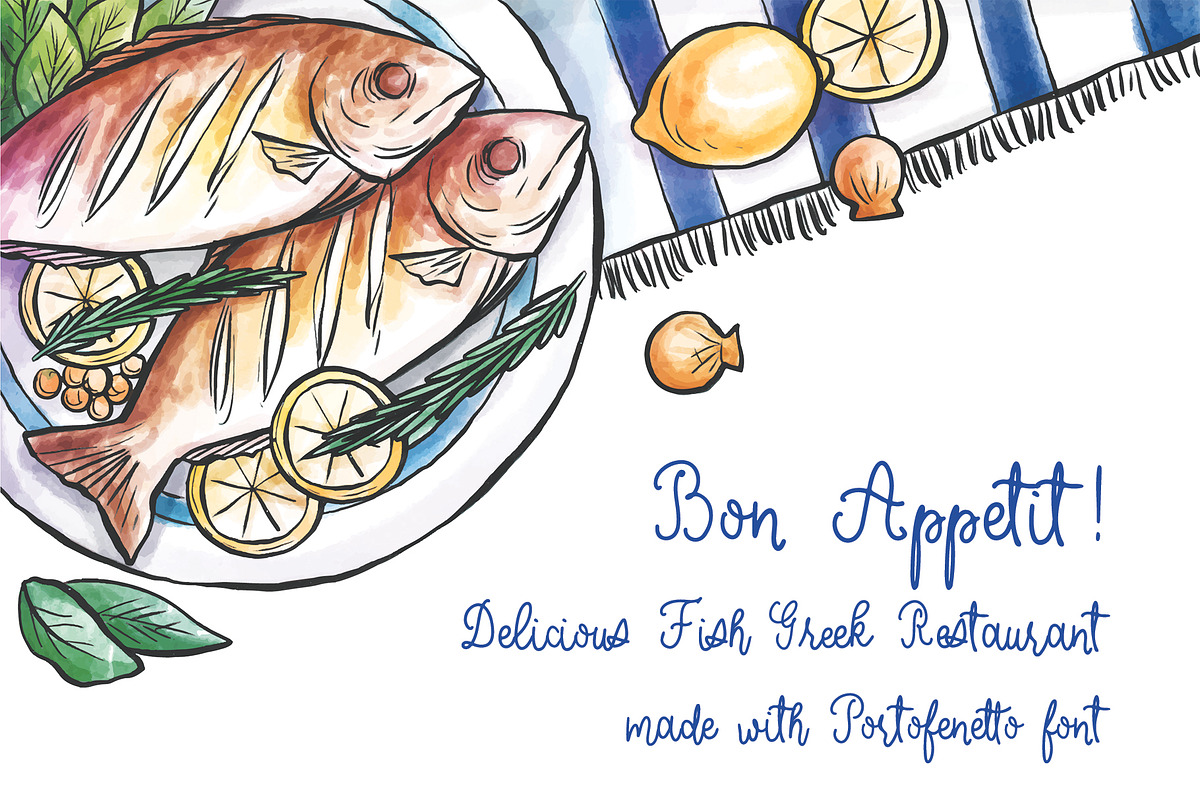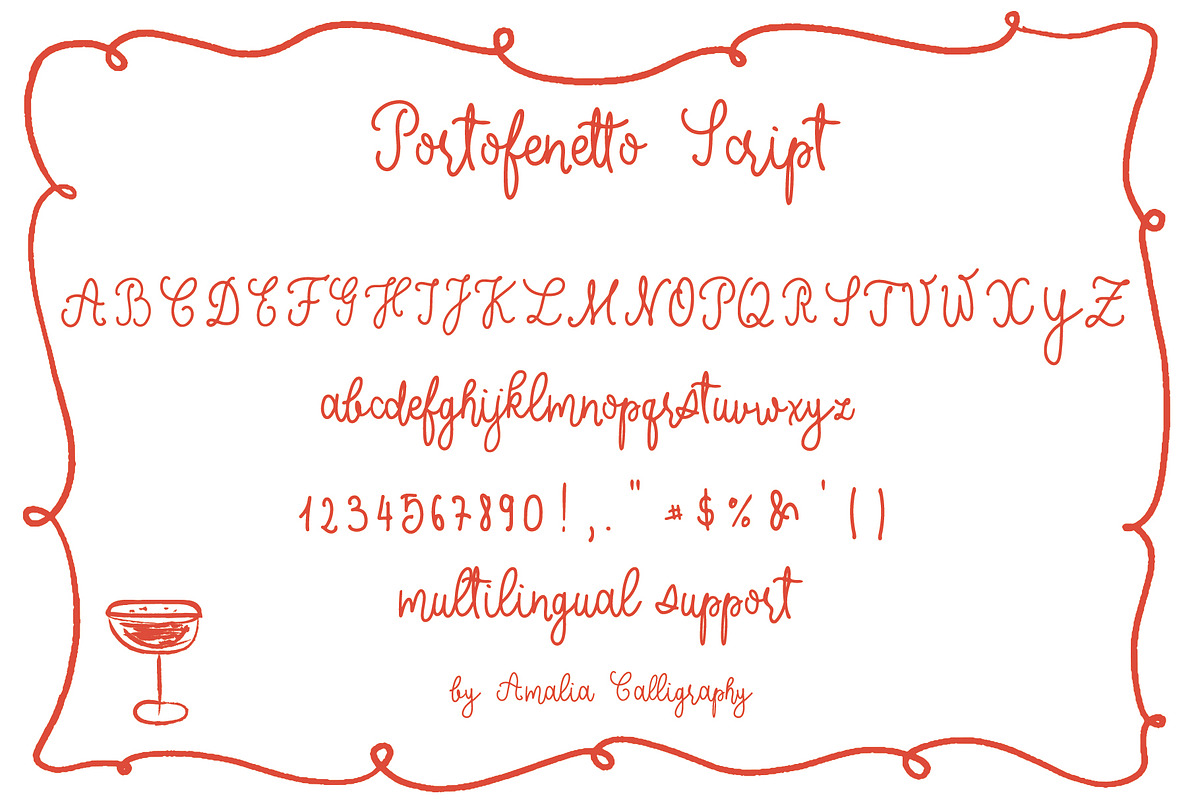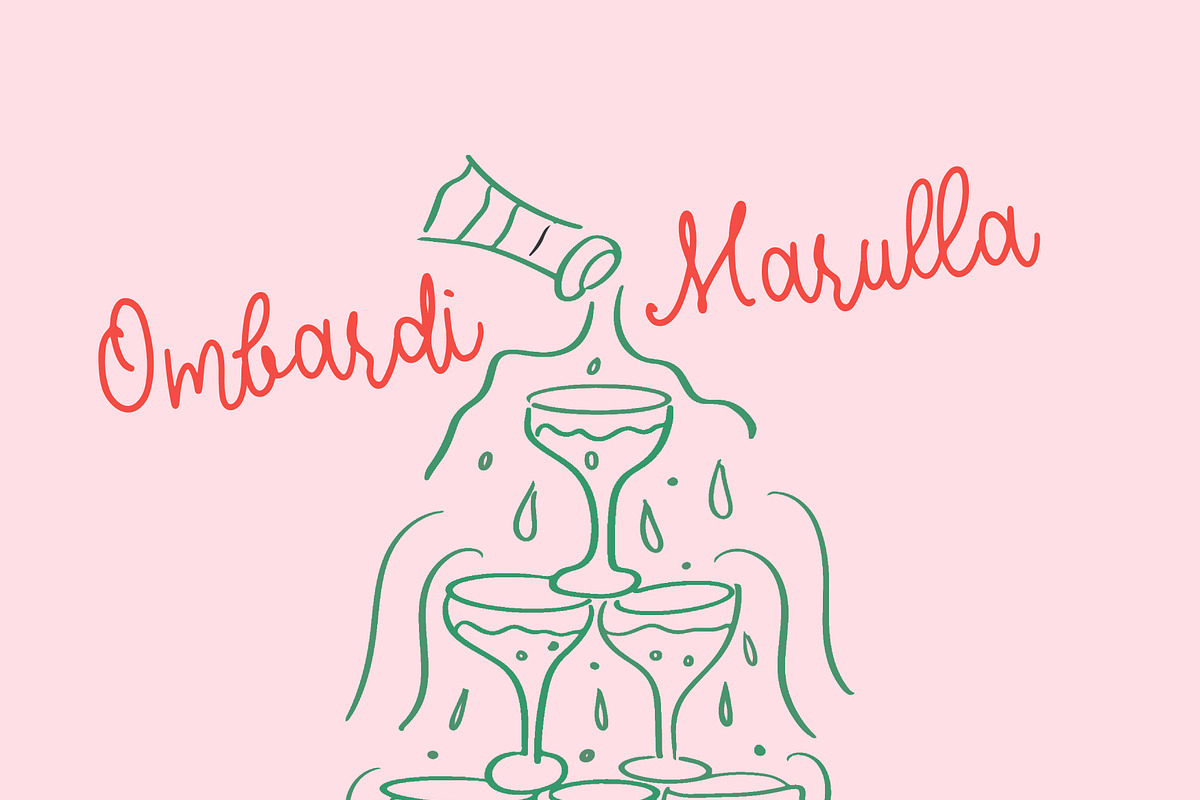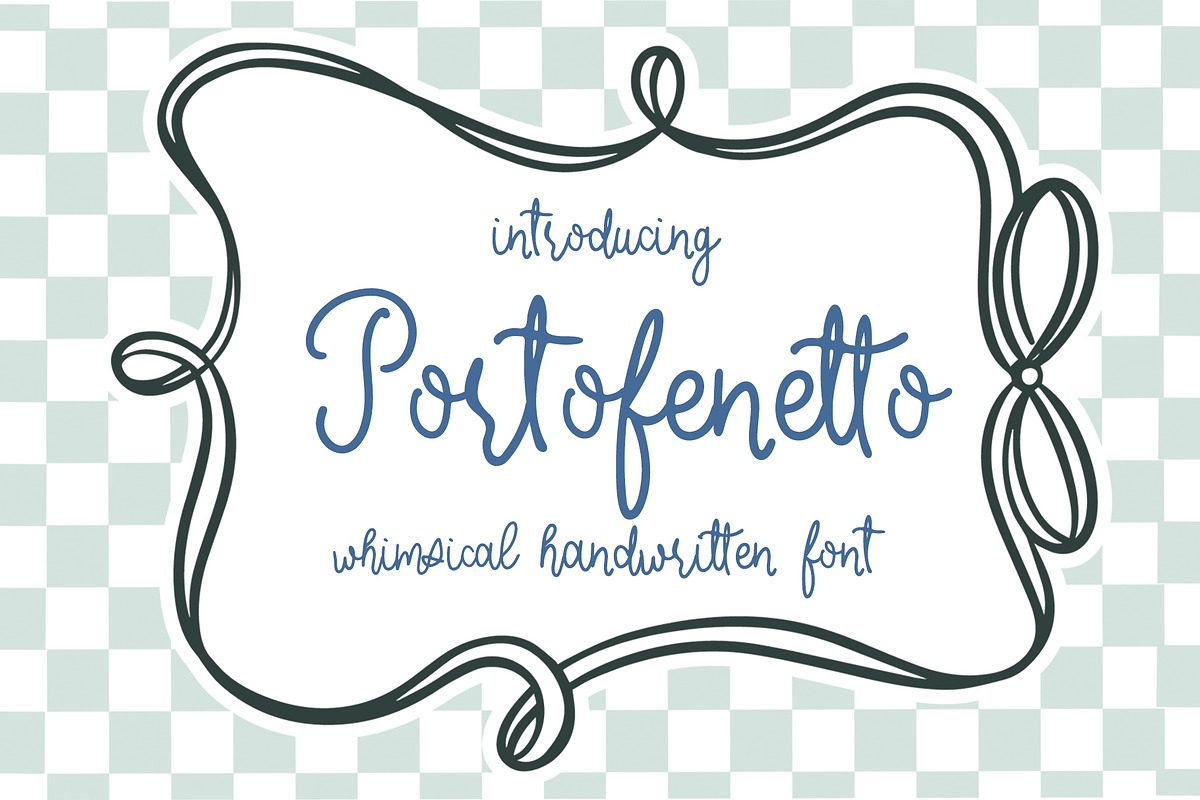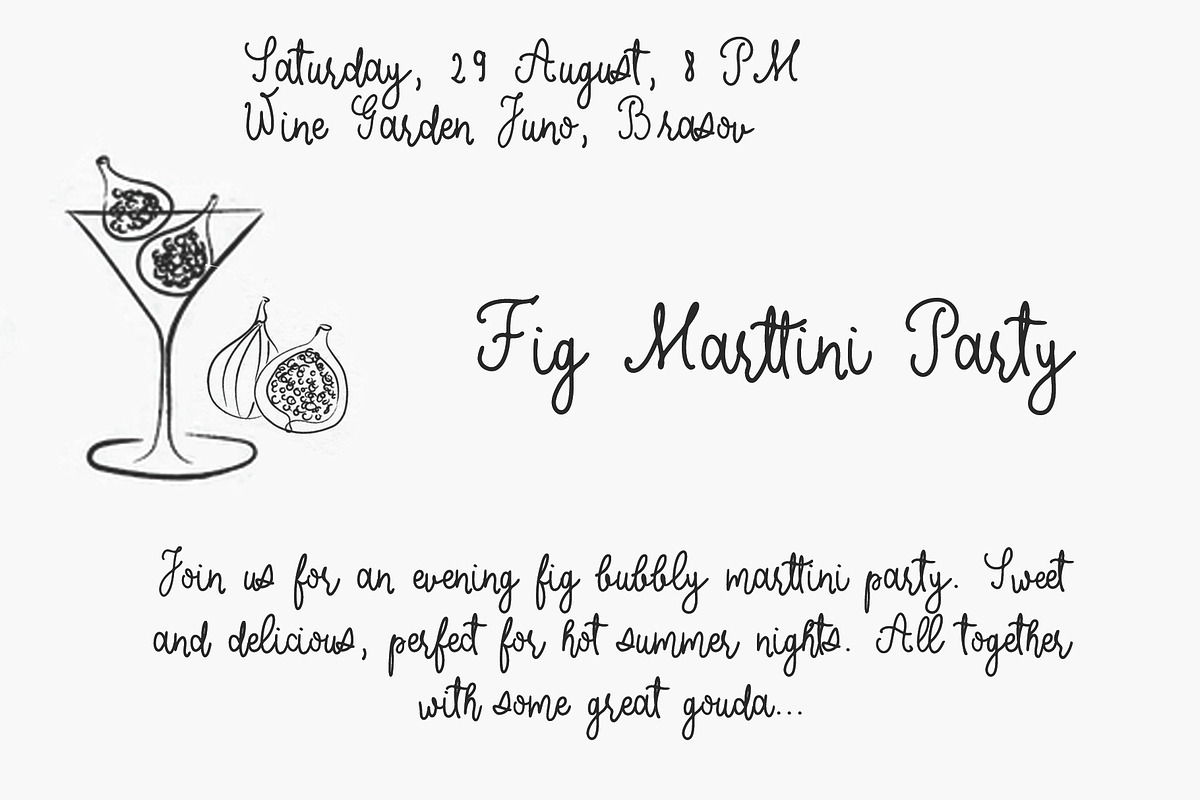
Vintage Coastal Handwritten Font
Portofenetto is a delightfully quirky handwritten font that is ideally suited for a whimsical aesthetics of wedding invitations and stationery. Warm and poetic, delicately handlettered, hand-quilled for a natural look that captures the charm of sweet little imperfectly hand drawn letters.
With a vintage coastal look, Portofenetto brings you to Amalfi Coast dreaming athmosphere, making it perfect for whimscial wedding invitations and creative projects.
Portofenetto Whimsical Wedding Font includes full set of Uppercase and Lowercase Basic Characters, Numbers, Punctuation and multilingual support. PUA encoded.